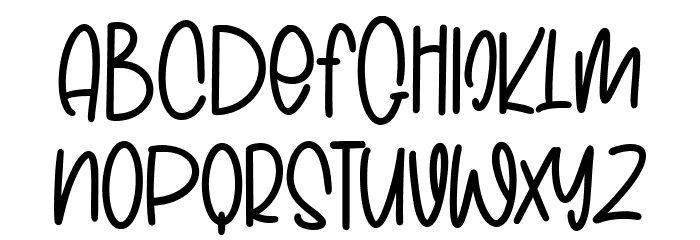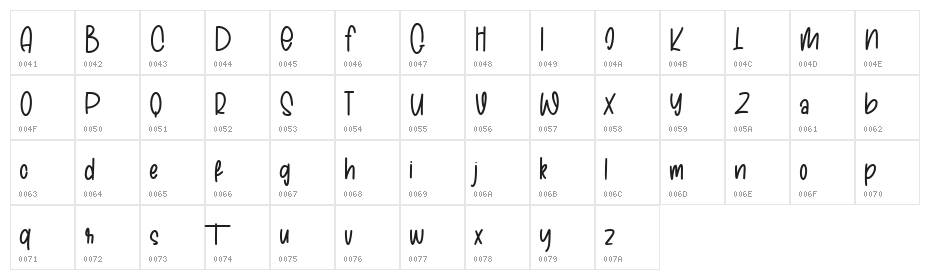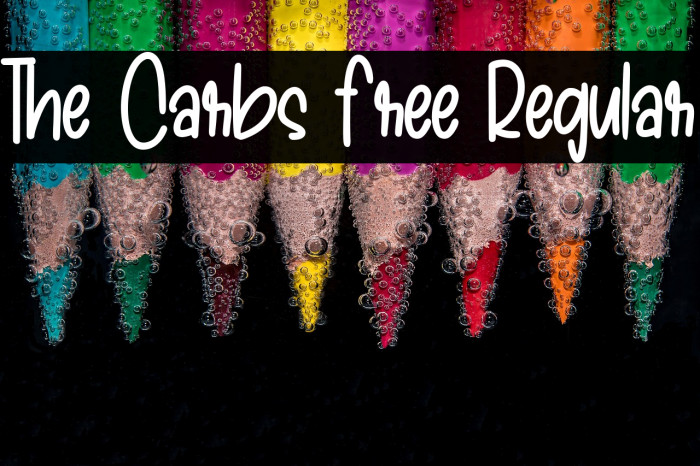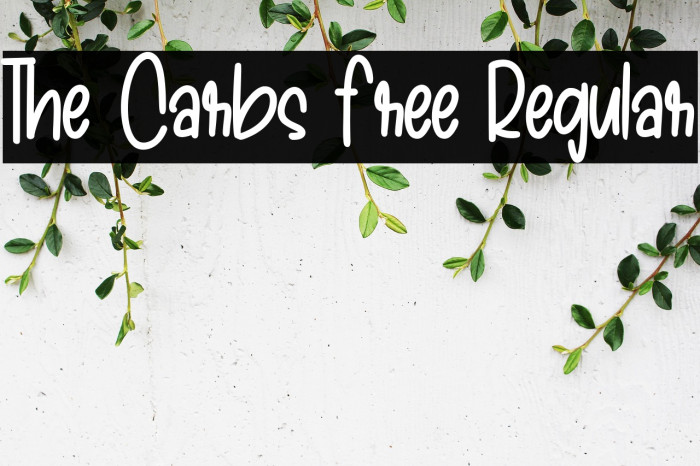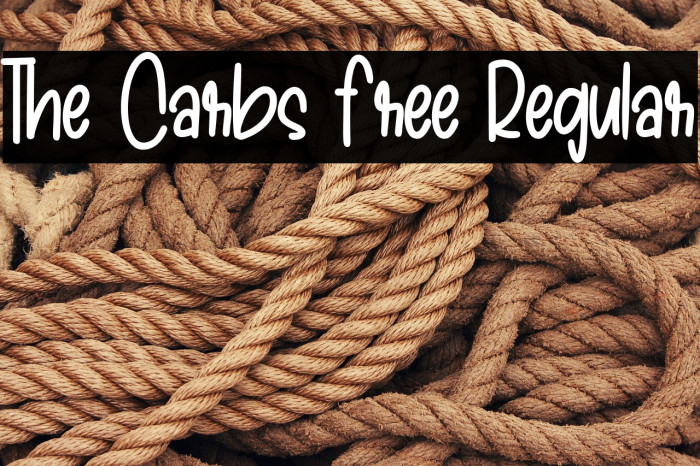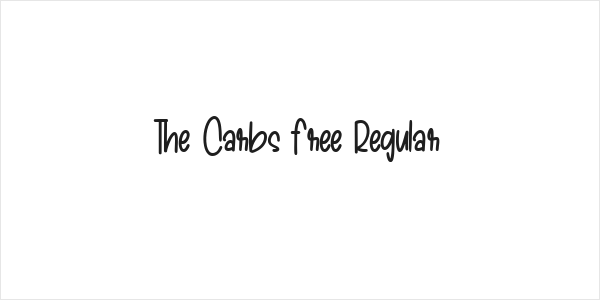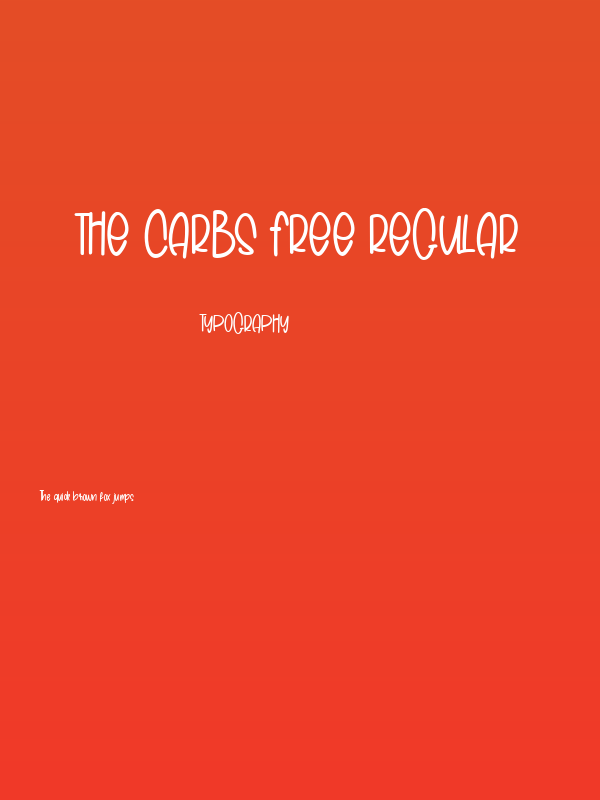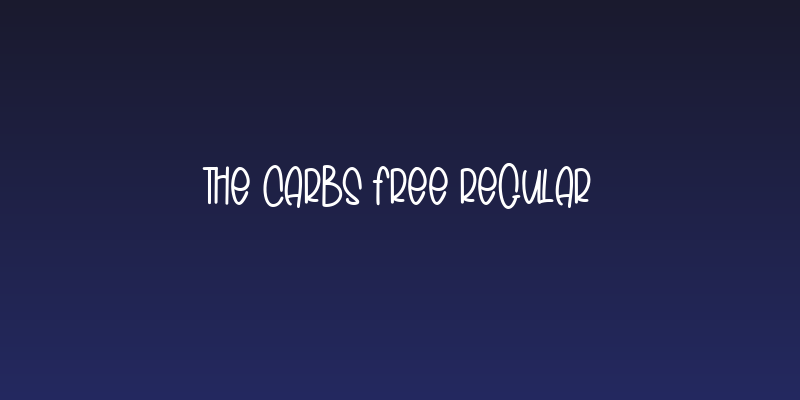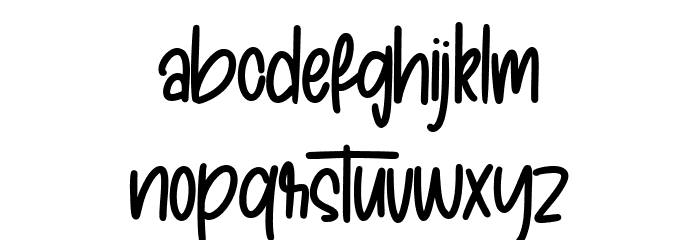
The Carbs Free Regular Font
The Carbs Free Regular Description
This font features a playful and casual handwritten style, characterized by its smooth, flowing curves and slightly irregular letterforms. The uppercase and lowercase letters maintain a consistent height, giving it a cohesive appearance. The strokes are moderately thick, providing good readability while retaining a friendly and approachable feel. The font's informal nature makes it suitable for projects that require a personal touch, such as invitations, greeting cards, or social media graphics. Its unique charm lies in its ability to convey warmth and creativity, making it a versatile choice for various design needs.
| Use Case | Logos, Headlines, Social Media |
| Proposed Projects | Ideal for invitations, greeting cards, social media graphics, and personal branding. |